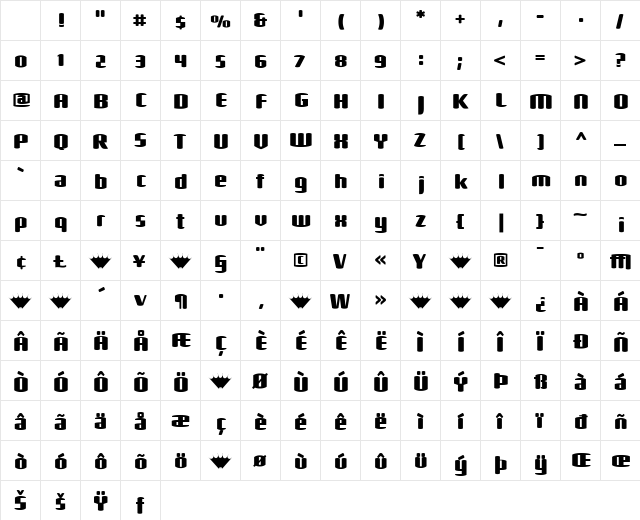
Shimano is a composed and adaptable typeface that performs quietly and consistently across a wide range of design contexts.
Who designed the Shimano Regular font?
This font was published by Copr. Richard Lipton, designer. Produced by The Font Bureau, Inc. Check the technical specs section for copyright and designer details.